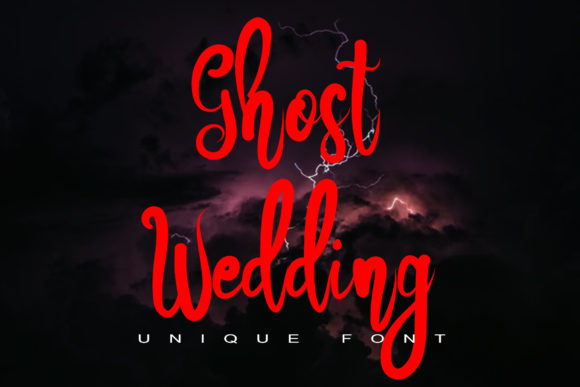
Welcome to the world of Ghost Wedding Font, a script font poised to add a touch of magic to your digital creations. Inspired by the allure of a moonlit stroll through a cherry blossom garden, this font dances along the baseline with whimsical, playful letters.
With Ghost Wedding Font, let your words and designs shimmer with elegance and charm. Whether composing enchanting invitations, designing spellbinding logos, or crafting captivating social media posts, this font will cast a captivating spell on all who lay their eyes upon it.
Glide your imagination across a tapestry of possibilities, knowing that Ghost Wedding Font stands ready to transform your creative dreams into reality. Its exquisite curves and intricate details will elevate your designs to captivating heights, leaving a lasting impression that echoes long after the first glimpse.
As a masterpiece crafted by the renowned font designer, Ansart, Ghost Wedding Font carries a legacy of excellence. With a deep understanding of typography's nuances, Ansart has breathed life into each letterform, ensuring that they dance harmoniously together, creating a visual symphony that captivates and inspires.
When you choose Ghost Wedding Font, you embrace a font that is more than just a collection of characters. You open the door to a world of creative possibilities, where ordinary words transform into enchanting tales and mundane designs metamorphose into captivating masterpieces.
So, dive into the world of Ghost Wedding Font and allow your creativity to flourish under its enchanting spell. Let your designs shine with an otherworldly glow and experience the joy of creating with a font that transforms the ordinary into the extraordinary.